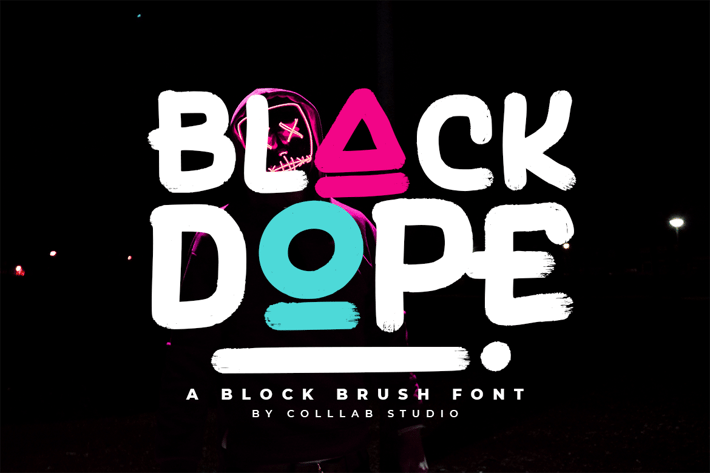
Black Dope - A Brush Font
Swagger into the room with the confidence of a display face that’s here to stay. Go ahead, strut your stuff.
Black Dope is a brush font with attitude, and it’s ready to carve its own trail in your design work. Full of swagger and style, Black Dope has all the versatility you could ask for in a font.
It’s perfect for big, bold titles and headlines. It has all the curves you could want in a display font, plus an added dash of refinement. And it’s got more than 350 glyphs, so you can let loose and take Black Dope anywhere you like.